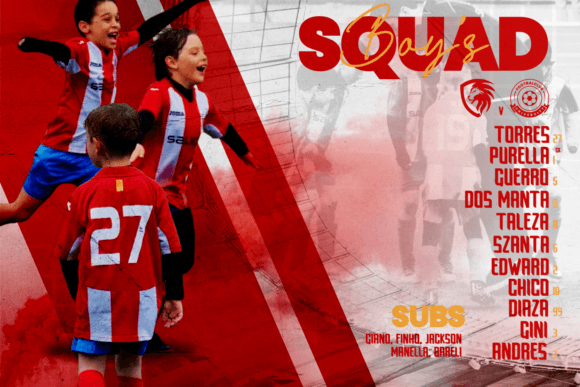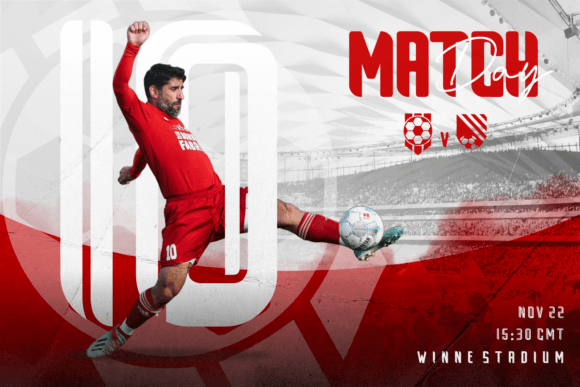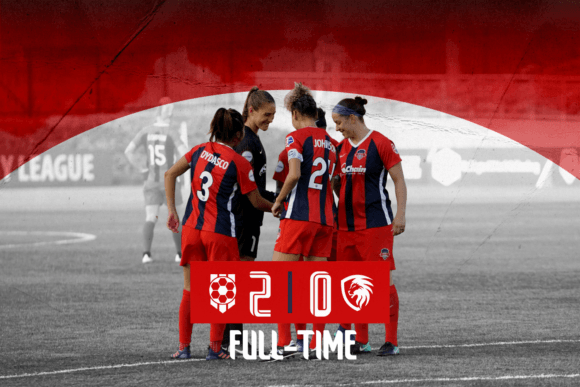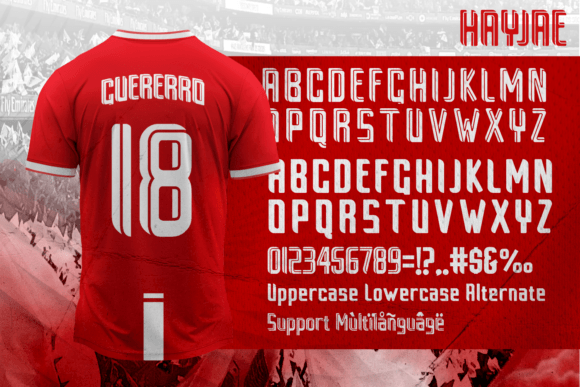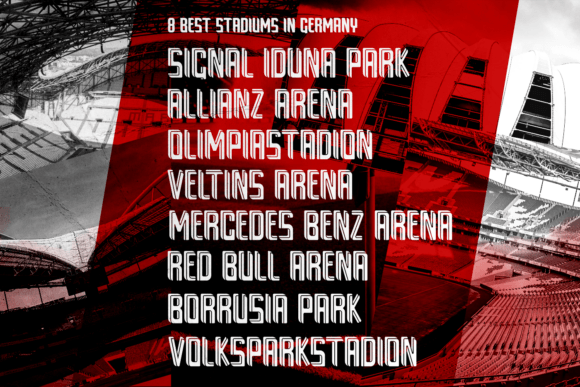
Introduction to Heyjae Font
Remember the rush of excitement when you finally design a logo for your favorite sports team or create a jersey design that perfectly captures their spirit? That feeling is what drives many designers to seek out the perfect font for their creative projects.
For those who crave a high-quality font that embodies the energy of sports, the Heyjae Font is an excellent choice. Available in two styles – inline and regular – this sans serif display font is perfect for branding projects, logos, and any project that requires a sense of jersey/sport font. Whether you’re working on a free download or a paid project, the Heyjae Font is a valuable design resource that can elevate your creative project to the next level.
With its transparent background and versatile design, the Heyjae Font is an excellent addition to any designer’s toolkit, making it perfect for a wide range of applications, from product packaging to social media posts.
Key Features of Heyjae Font
- High-quality design with a unique, creative style, making it perfect for a variety of creative projects.
- Supports a wide range of languages, including English, making it a versatile design resource.
- Designed to be highly legible at various resolutions and sizes, from small text to large headings.
- Includes a range of glyphs and characters, making it suitable for a variety of creative projects, from logos to publications.
Honest Review: Heyjae Font
As a designer, I’m always on the lookout for high-quality, free design resources that can elevate my creative projects. The Heyjae Font is one such resource that I’ve recently come across, and I must say it’s been a pleasant discovery.
What works well about the Heyjae Font is its sleek and modern design, which makes it perfect for a wide range of creative projects. The font features a transparent background, allowing it to seamlessly integrate with any design element. I also appreciate the variety of styles and weights available, making it easy to find the perfect fit for my project.
- ✨ Transparent background for easy integration with design elements
- ✨ Variety of styles and weights to choose from
However, I do have a few limitations to mention. The font can be a bit tricky to use for large blocks of text, as it may lose its readability. Additionally, the font may not be suitable for all types of projects, particularly those that require a more formal or traditional look.
Overall, I’m impressed with the Heyjae Font and would definitely recommend it to fellow designers. It’s a great addition to any design resource library, and I’m excited to see how it will help elevate my future creative projects.